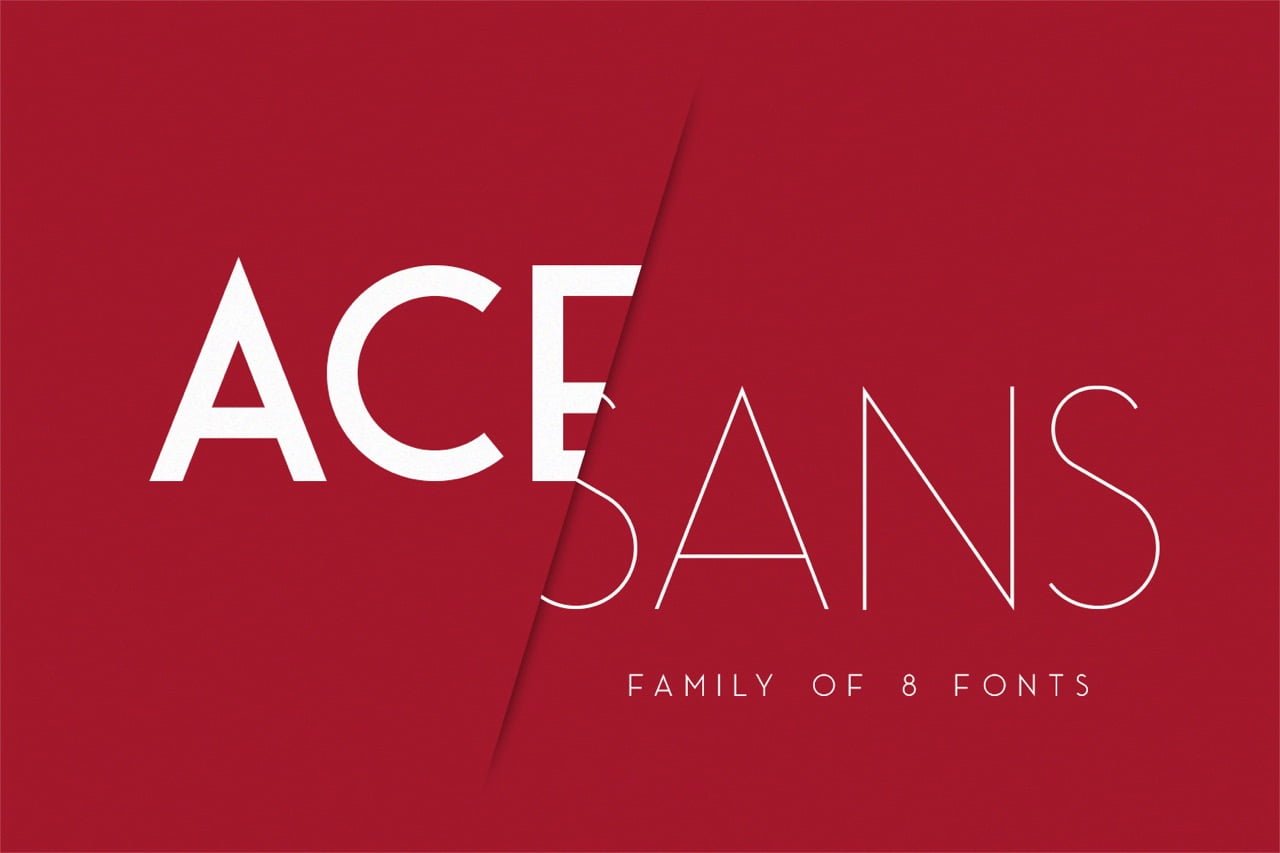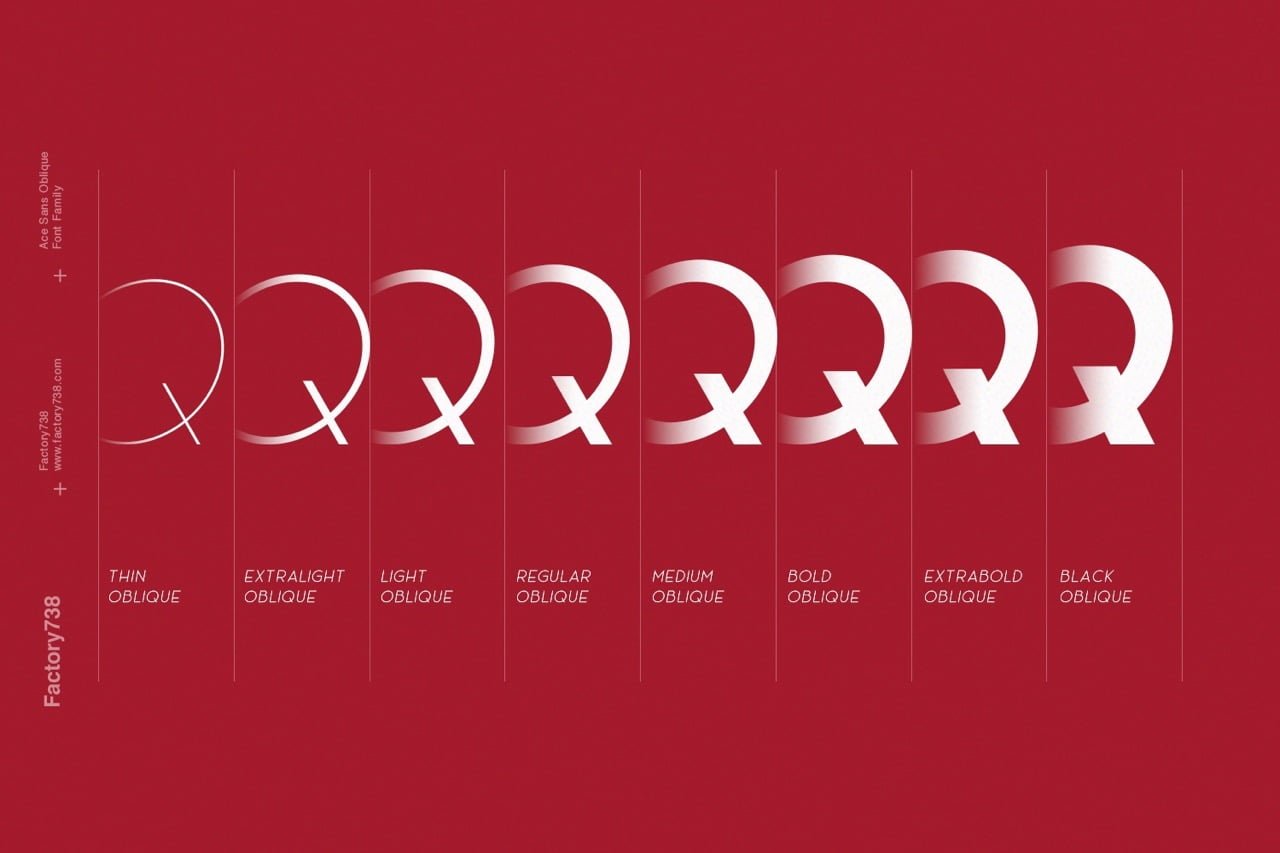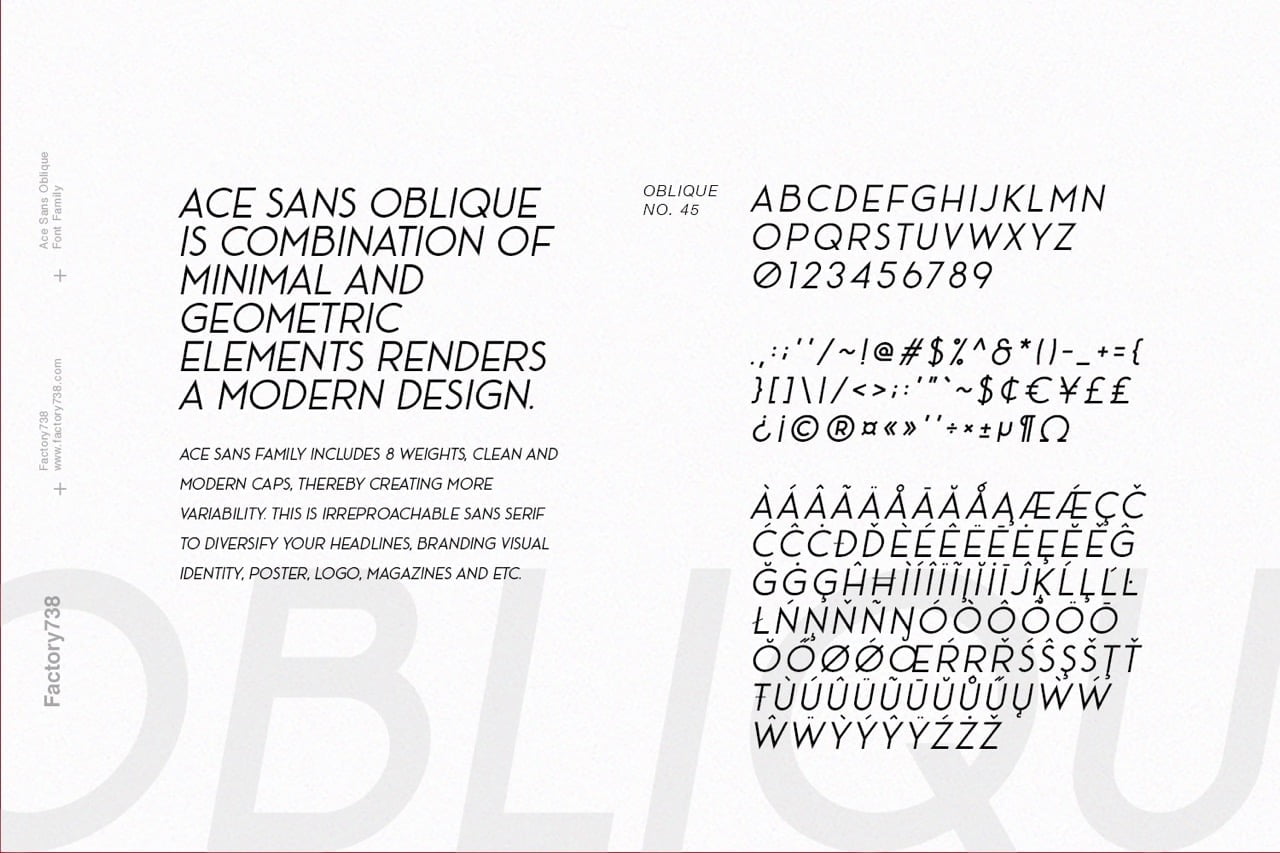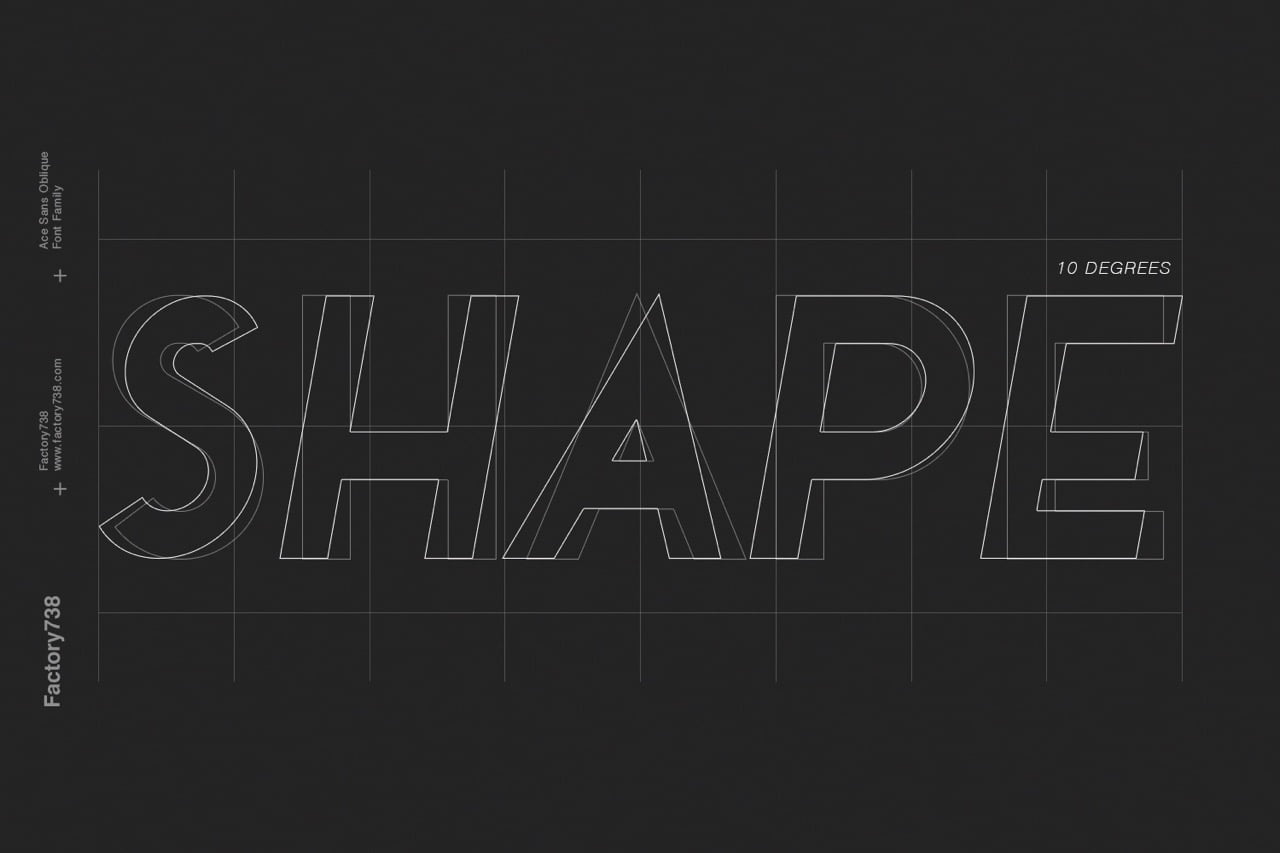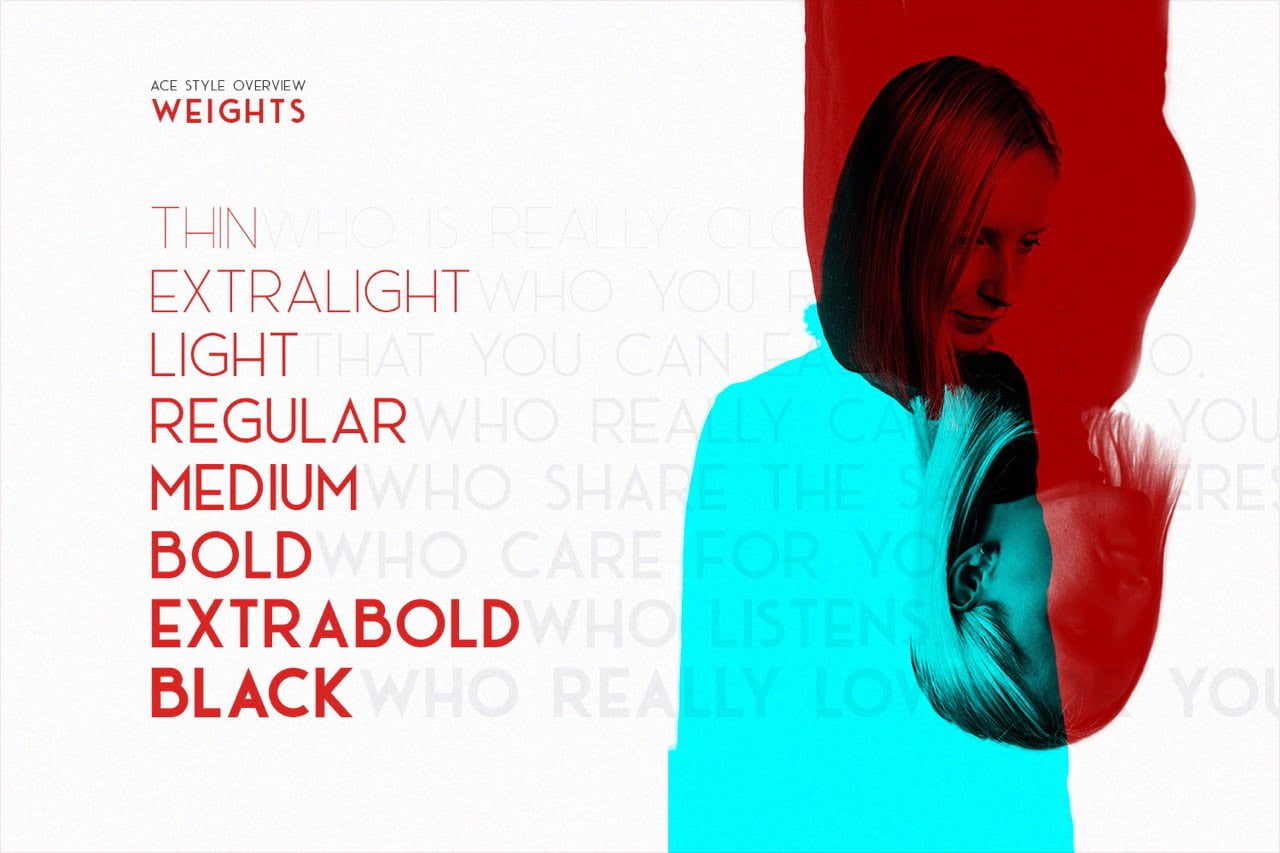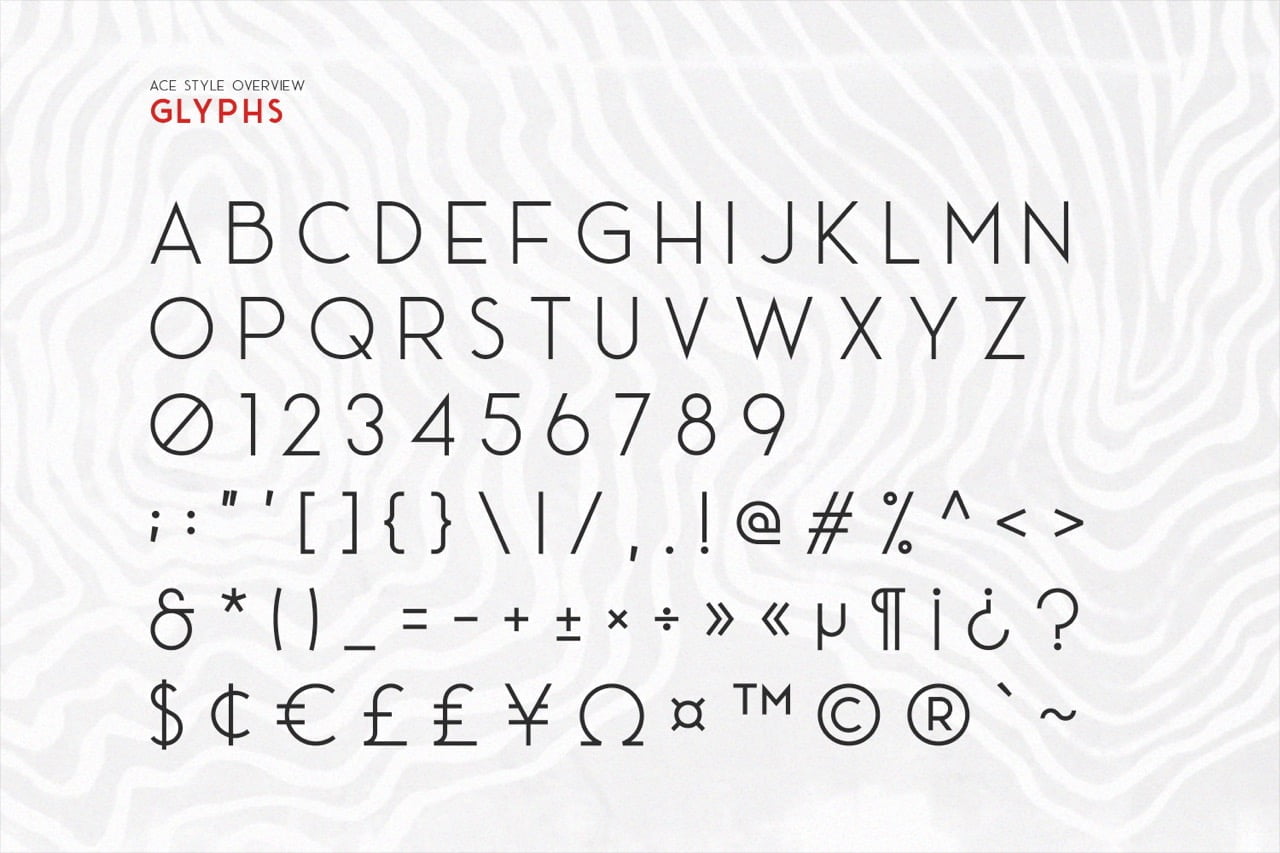
Ace Sans is a modern and minimalist sans serif font family. The combination of minimal and geometric elements renders a modern design. Ace Sans family includes 8 fonts, clean and modern caps, thereby creating more variability. This is irreproachable sans serif to diversify your headlines, branding visual identity, poster, logo, magazines and etc.
- 8 Weights Sans (Thin, Extralight, Light, Regular, Medium, Bold, Extrabold, Black)
- 2 Styles (Regular and Oblique)
Ace Sans